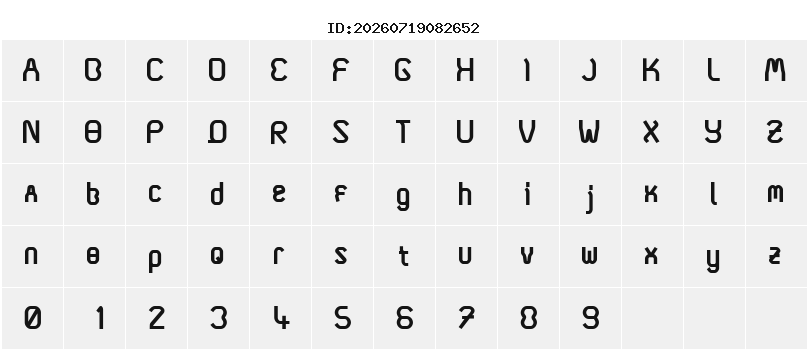
• Font Name: Coma01
Coma01.ttf is a modern, elegant sans-serif font designed for ultimate readability and visual harmony. Perfect for branding, headlines, web design, and print materials.